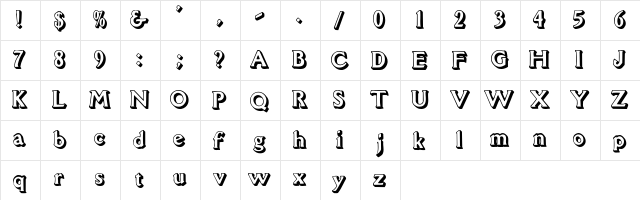
Flug Regular Font Preview
Flug Regular
Flug Regular Font Details
Design Context for Flug Typeface
Flug is a composed and adaptable typeface that performs quietly and consistently across a wide range of design contexts.